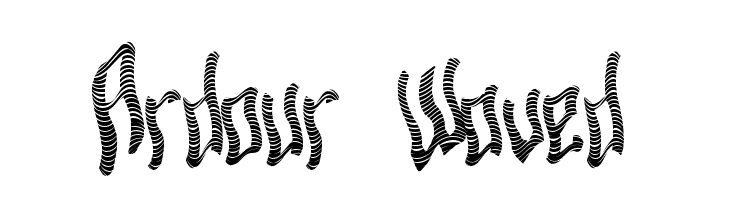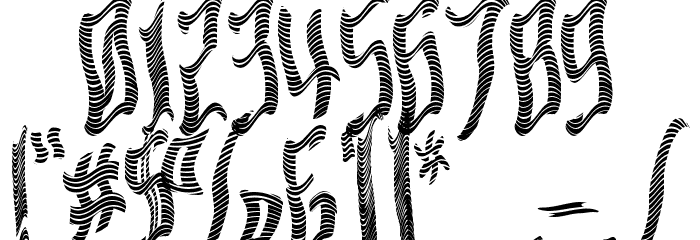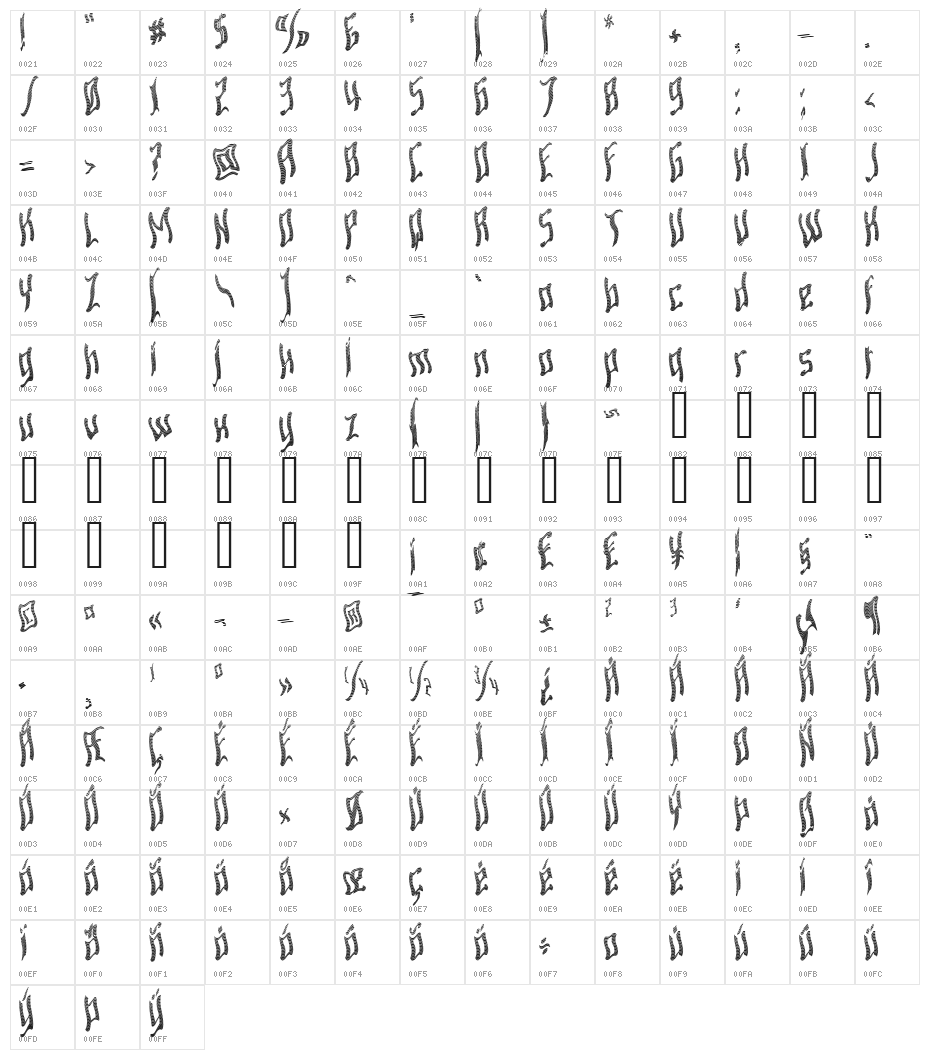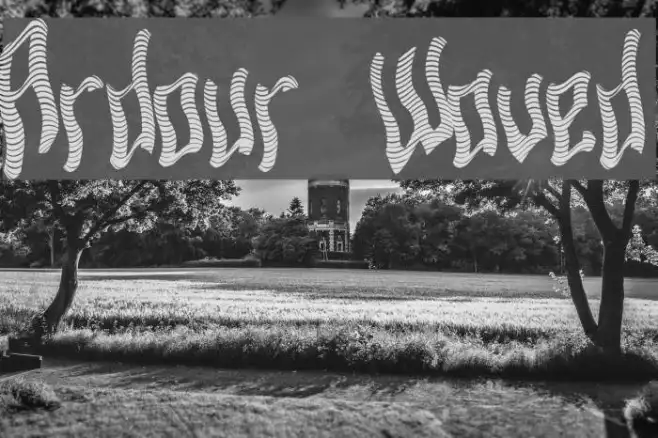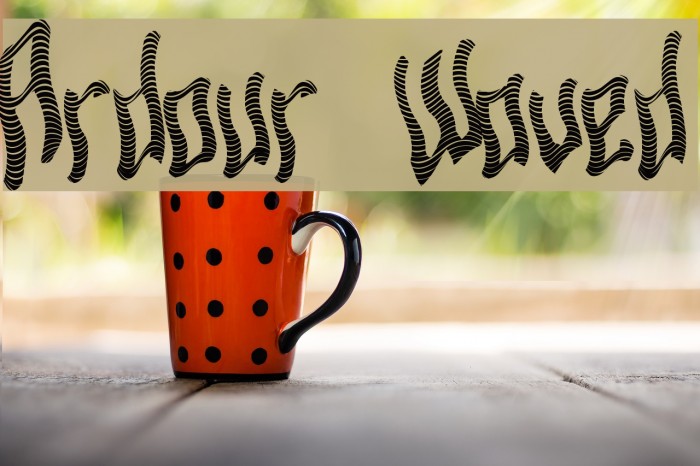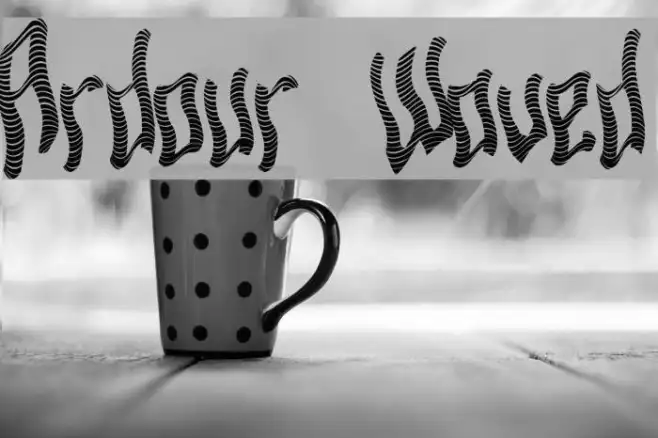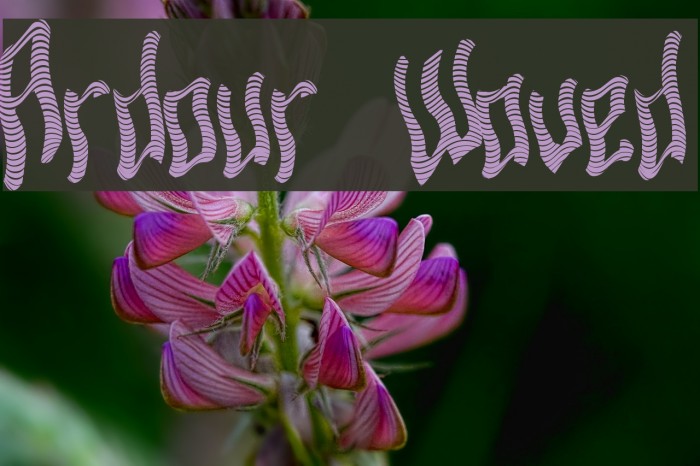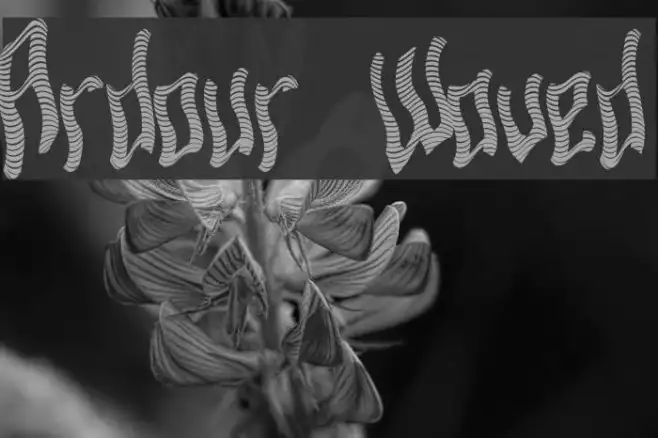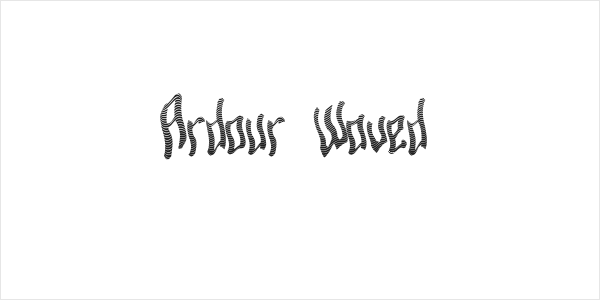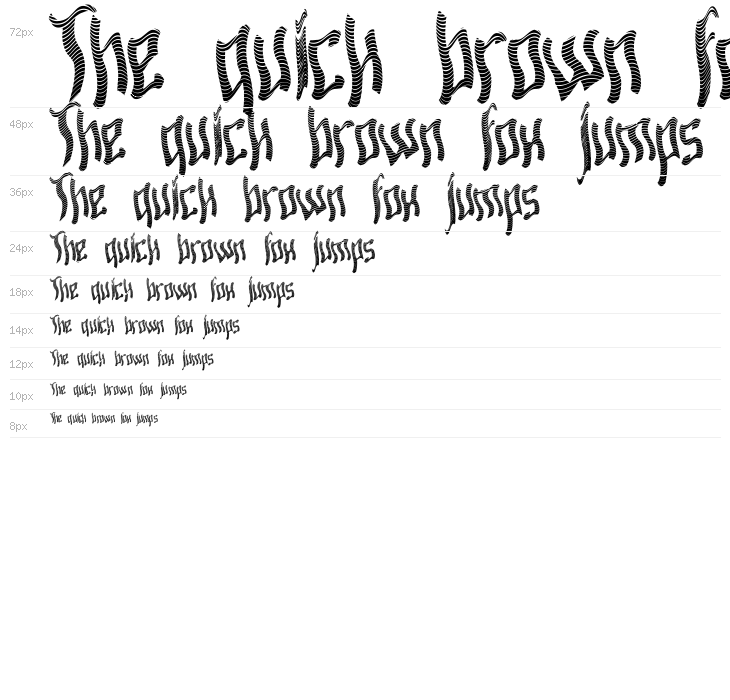
Ardour Waved Font
Ardour Waved Description
This font features a distinctive waved pattern that gives each character a dynamic and flowing appearance. The letters are composed of thick and thin lines that create a sense of movement, reminiscent of waves or ribbons. The overall design is highly decorative, with a unique texture that adds depth and visual interest. The uppercase and lowercase letters maintain a consistent style, while the numbers and special characters integrate seamlessly with the alphabet. This font's artistic flair makes it stand out, offering a bold and creative option for various design projects.
| Proposed Projects | Ideal for artistic posters, album covers, branding projects, and creative invitations. |